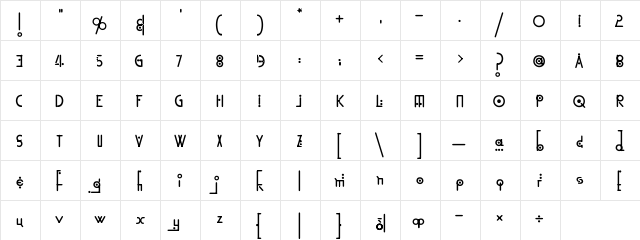
Kingthings Linear K Regular
Design Context for Kingthings Linear K Typeface
Kingthings Linear K offers clean, dependable letterforms without strong stylistic allegiance, making it a practical choice for designers who need flexibility. The delicate stroke weight brings airiness and refinement to layouts.